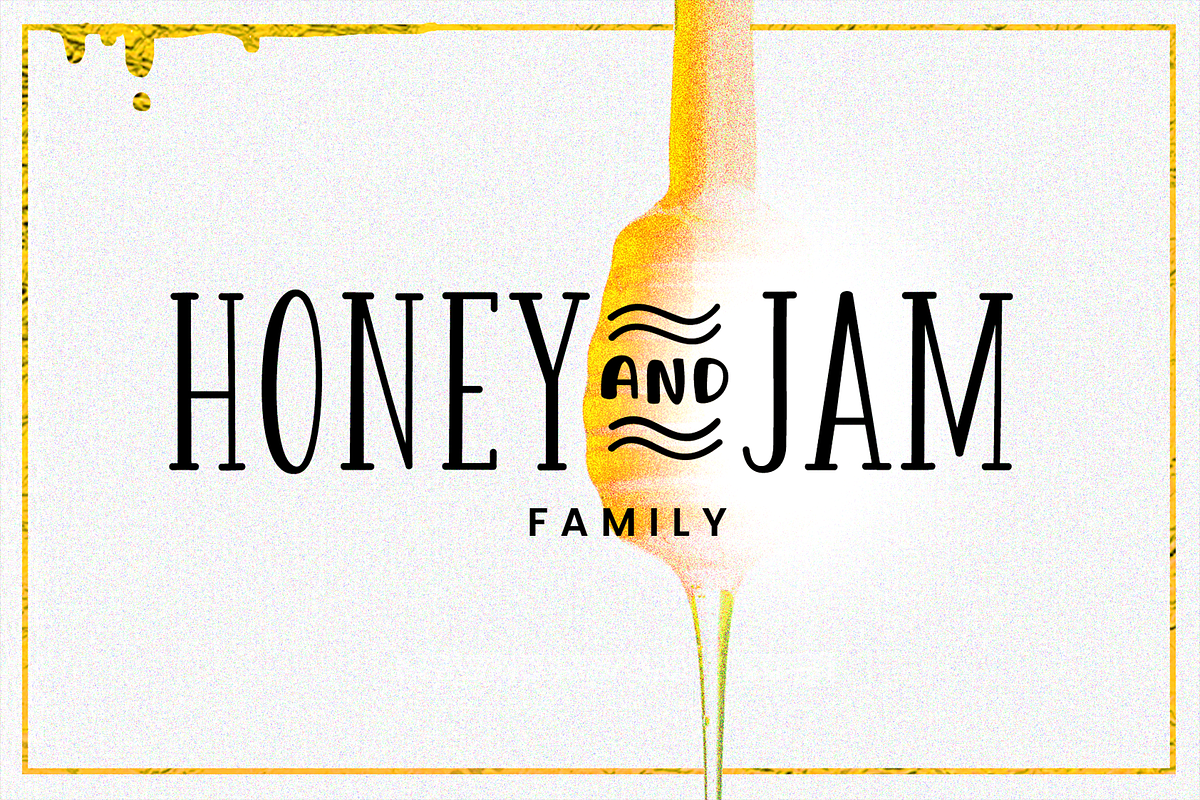
Honey and Jam Font Family Free Download is a charming and versatile typeface family designed with a playful, handmade aesthetic. With multiple weights and styles, this font family is perfect for projects that need a warm, welcoming, and artistic touch, such as branding, packaging, invitations, and more.
The Honey and Jam family combines beautiful script lettering with clean, modern sans-serif options, allowing you to mix and match for dynamic designs. Whether you’re working on a food brand, creative marketing materials, or personalized stationery, this font family brings a cozy, rustic vibe to your typography.
Add a sweet, handcrafted feel to your designs with the delightful style of Honey and Jam!